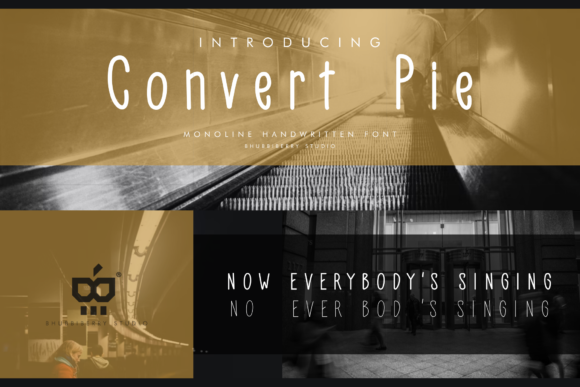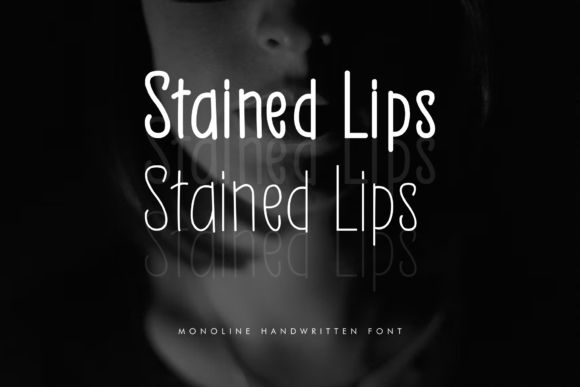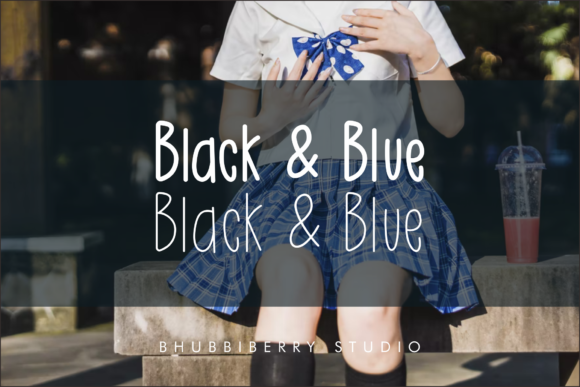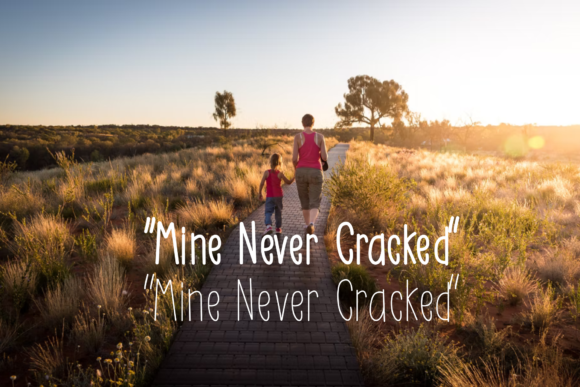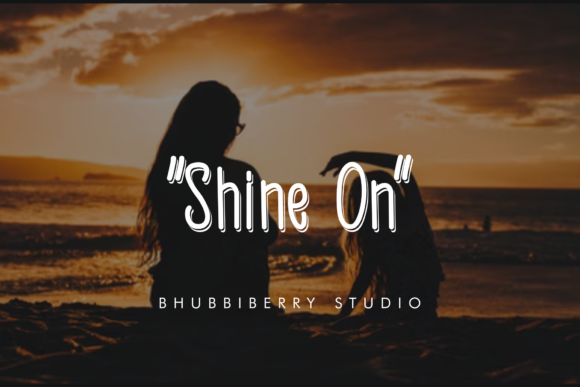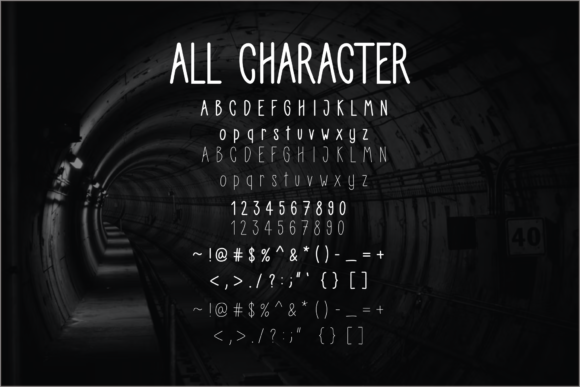
Convert Pie Font
About Convert Pie Font
Introducing Convert Pie, a clean and simple handwritten font designed for versatility and clarity. This font is the perfect choice for a wide range of applications, including product packaging, branding projects, magazines, social media, or any context where you want to express words clearly and effectively against various backgrounds.
Convert Pie’s clean design ensures readability and simplicity, making it a practical and versatile option for your design needs. Whether you’re creating a sleek product package, establishing a brand identity, or crafting content for social media, this font adds a touch of clarity and straightforwardness to your projects.
The simplicity of Convert Pie allows it to seamlessly integrate into different design contexts without compromising its legibility. Its clean lines and straightforward style make it a reliable choice for conveying messages, ensuring that your words stand out above the background without unnecessary distractions.
Consider Convert Pie as your go-to font when you need a clean and simple handwritten style that effortlessly communicates your message. Its adaptability makes it a valuable asset for a variety of design applications, offering a timeless and uncluttered aesthetic.
In summary, Convert Pie is more than just a font; it’s a clean and simple handwritten tool crafted to enhance the readability of your projects. Whether you’re working on product packaging, branding, magazines, or social media, Convert Pie provides a straightforward and effective solution for expressing words with clarity and style.